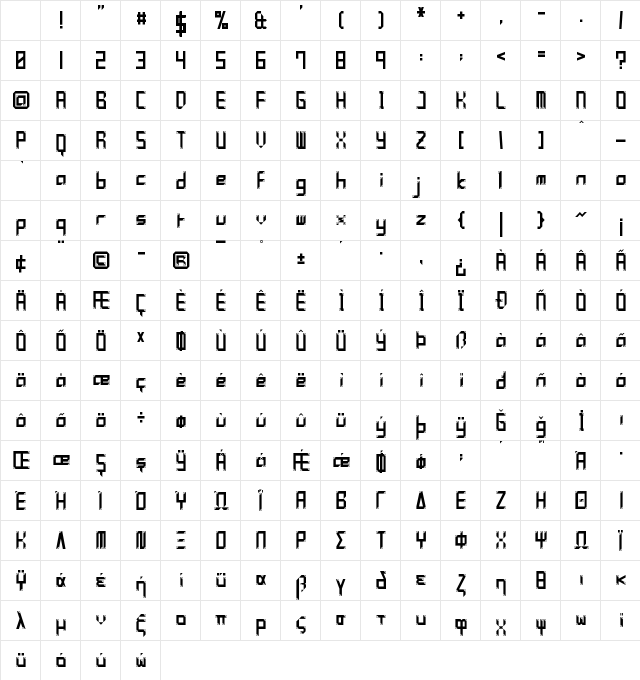
Complete ylee Polymnia Framed Regular glyph index. Displaying only characters natively supported by ylee Polymnia Framed Regular font.
ylee Polymnia Framed is a composed and adaptable typeface that performs quietly and consistently across a wide range of design contexts.
Who designed the ylee Polymnia Framed Regular font?